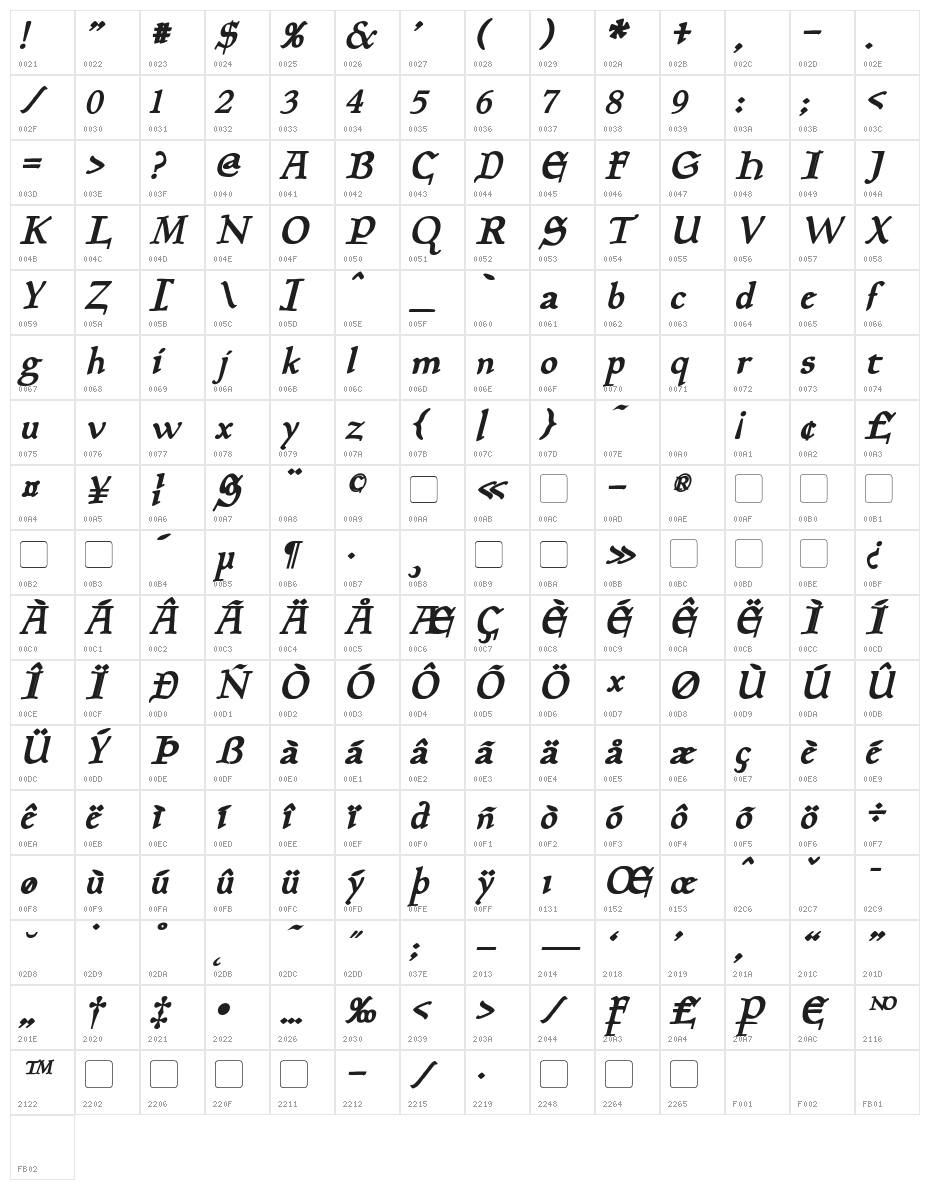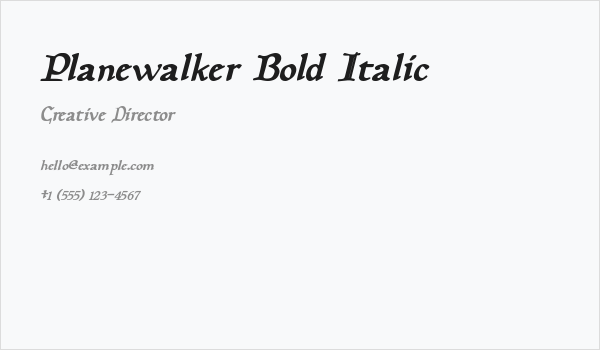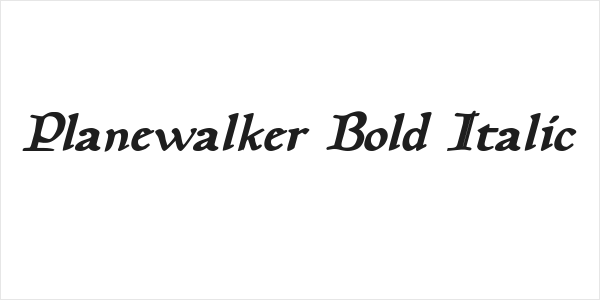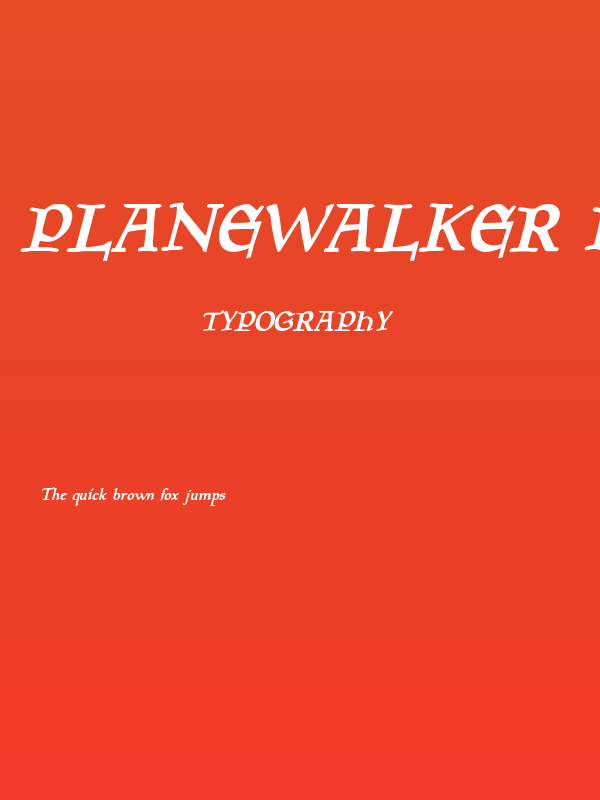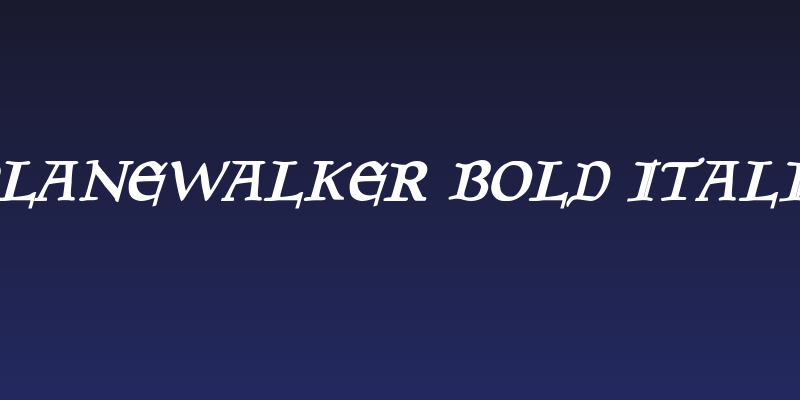
Planewalker Bold Italic Font
Planewalker Bold Italic Description
This font exhibits a dynamic and expressive style, characterized by its bold and italicized form. The letters are slightly slanted, giving a sense of motion and energy. The strokes are thick and consistent, providing a strong presence on the page. The uppercase letters have a distinctive flair, with unique serifs and curves that add to the font's personality. The lowercase letters maintain a cohesive look with smooth transitions and rounded edges. Numbers are bold and clear, ensuring readability. Special characters are well-integrated, maintaining the overall aesthetic of the font.